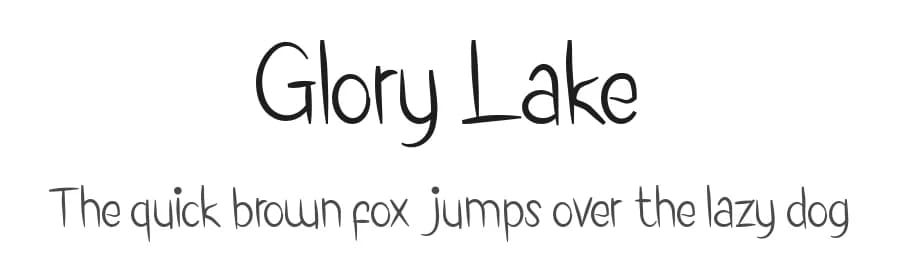
About Glory Lake Font
Glory Lake Specifications
| Font Family | Glory Lake |
| Full Name | GloryLake |
| Glyph Count | 241 glyphs |
| PostScript Name | GloryLake |
| Designer | Display Studio |
Glory Lake supports 224 languages.
Glory Lake Font is a script font that shines as a display or heading face. Pair it with a clean sans-serif or serif font for body text β the contrast creates a clear hierarchy while the two styles stay balanced and easy to read.
Glory Lake Font